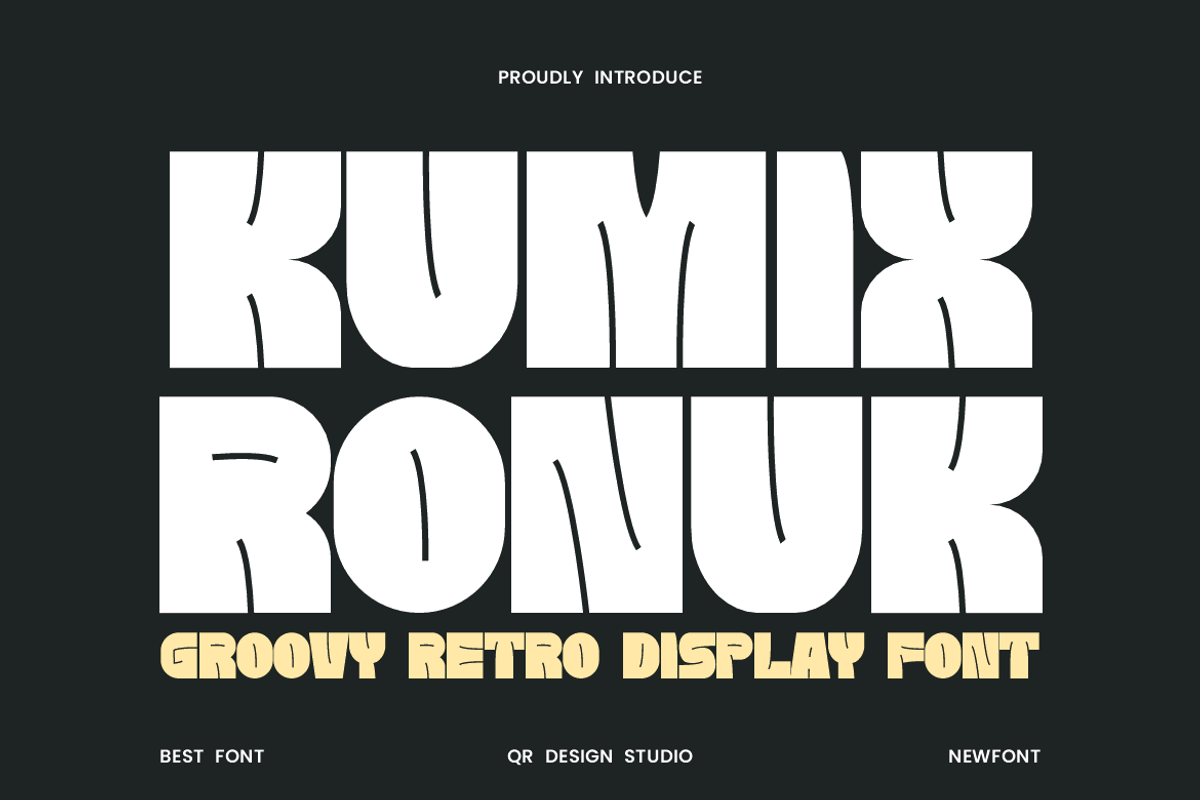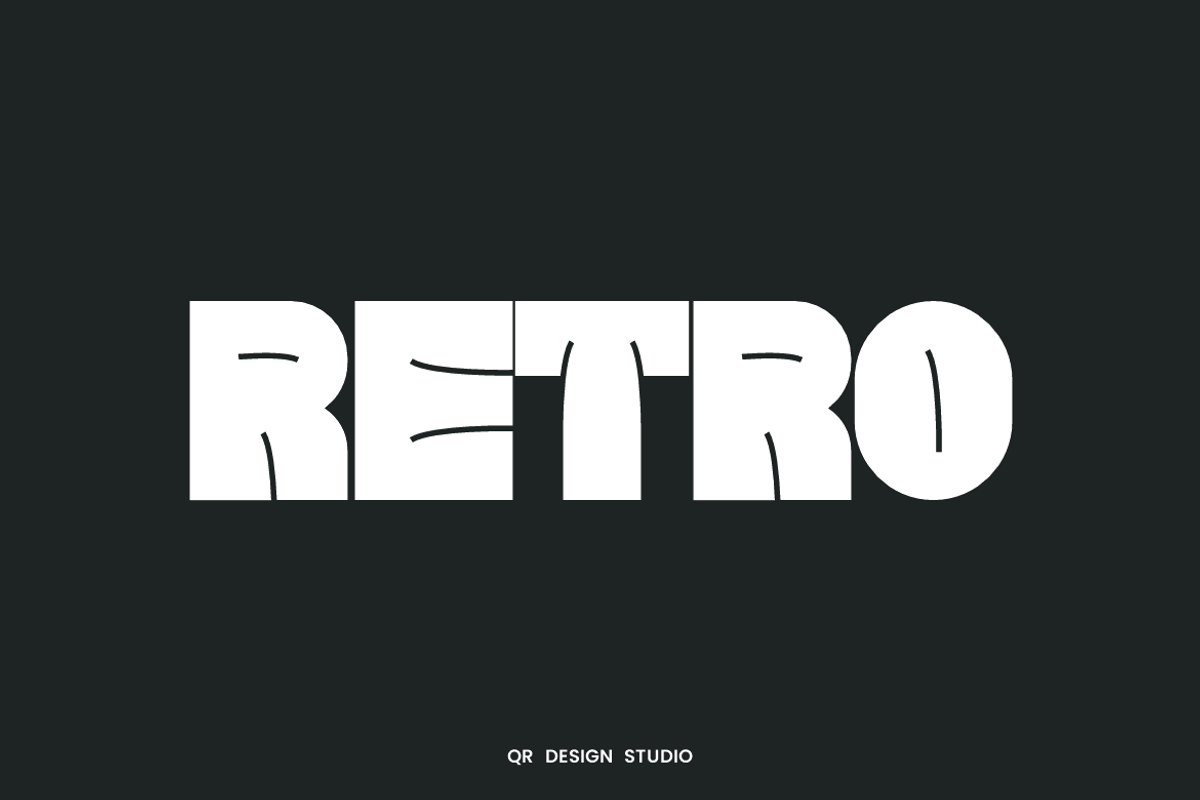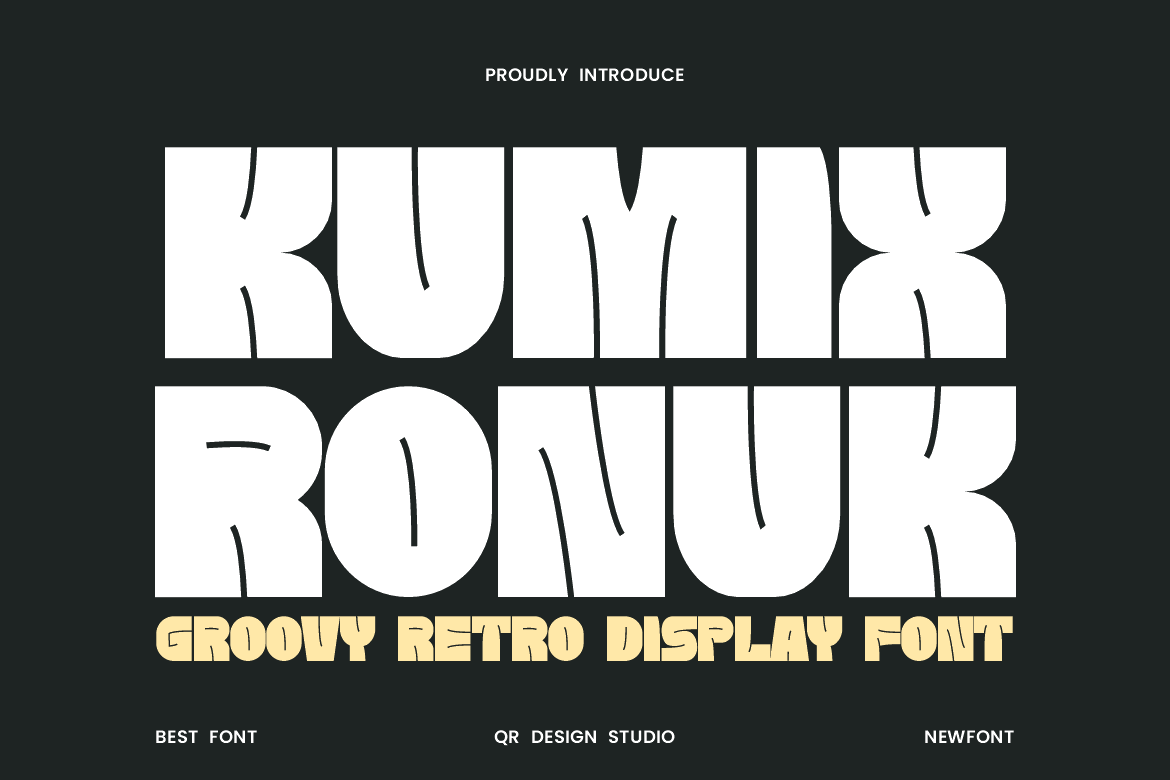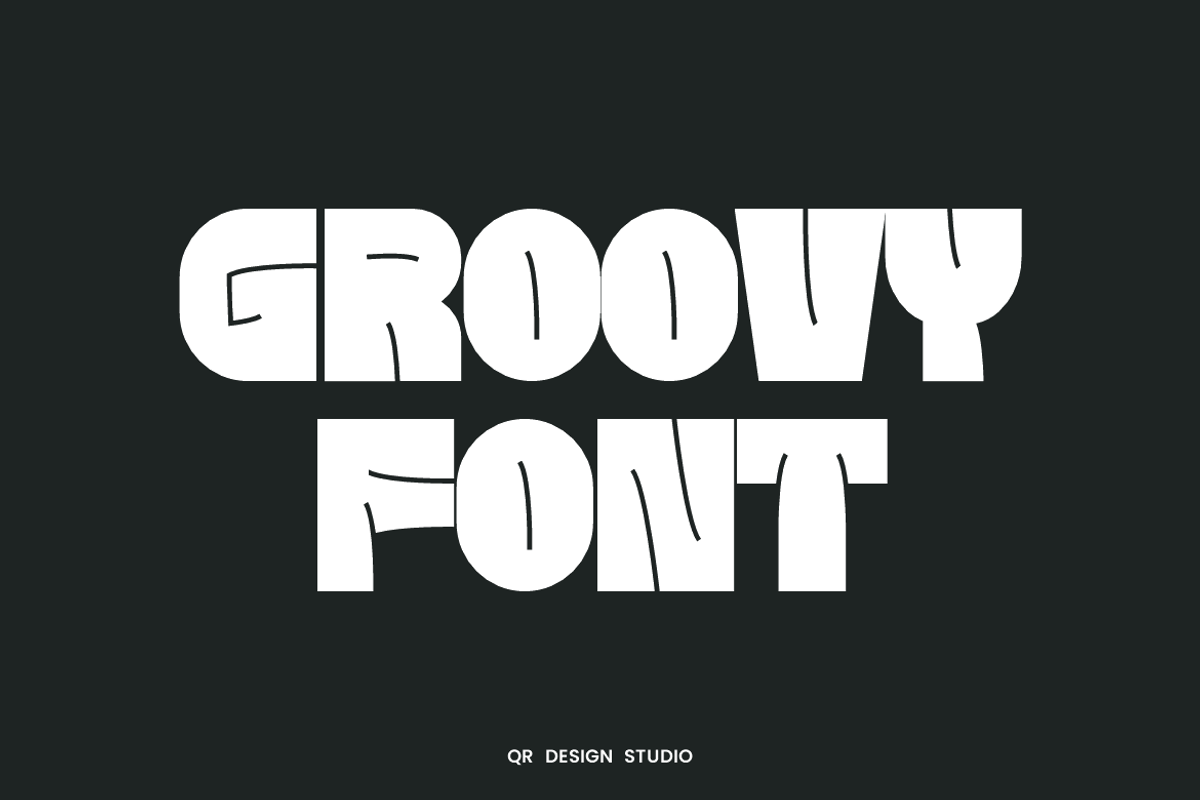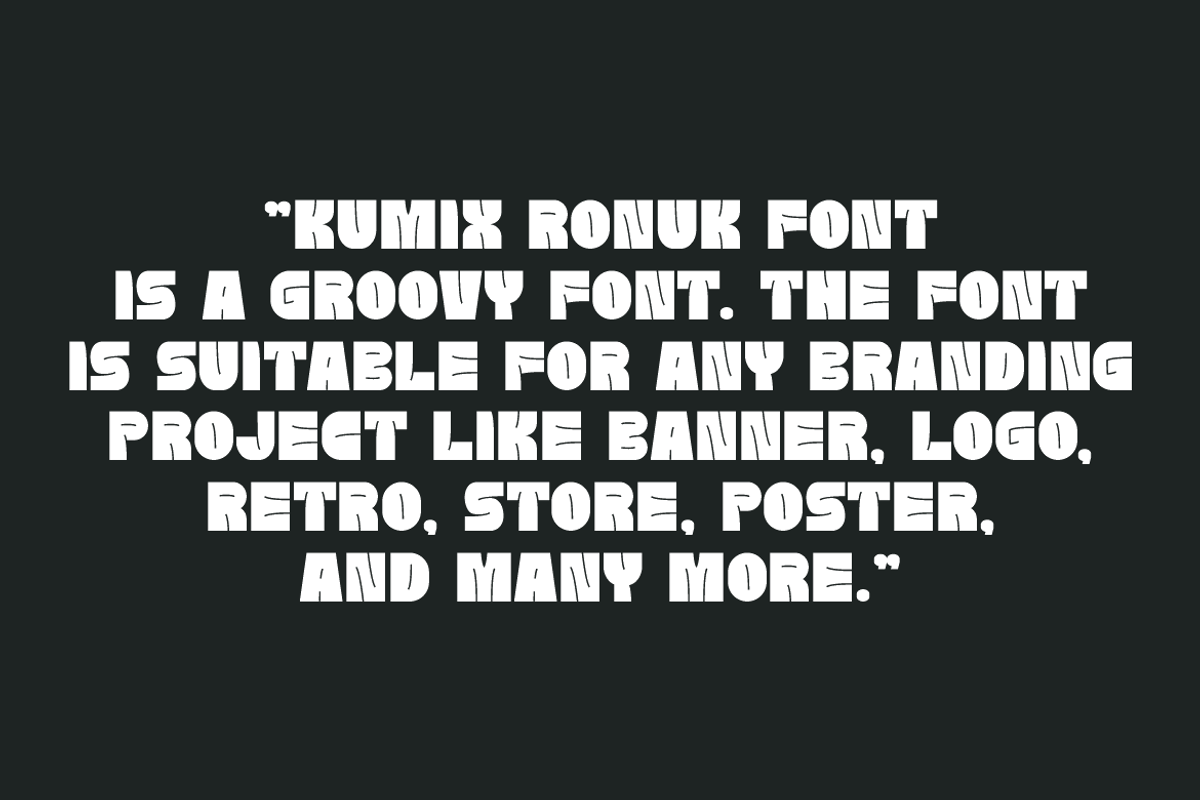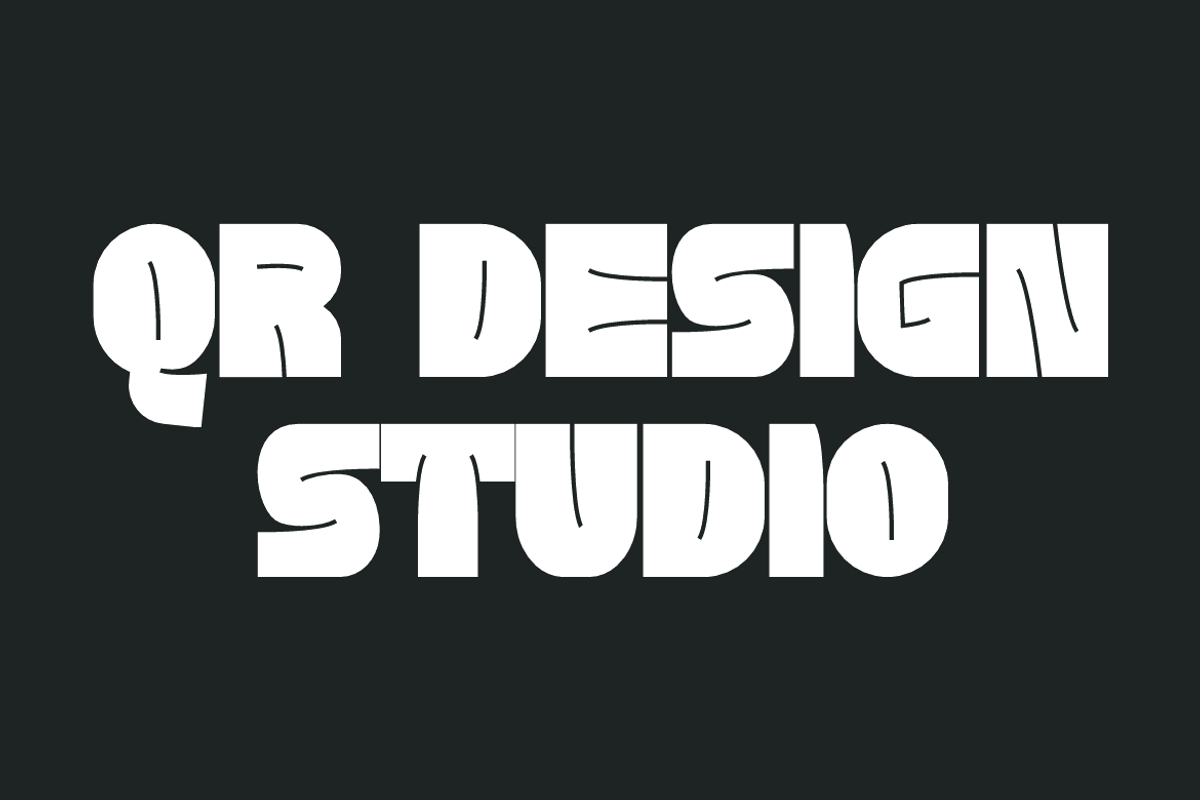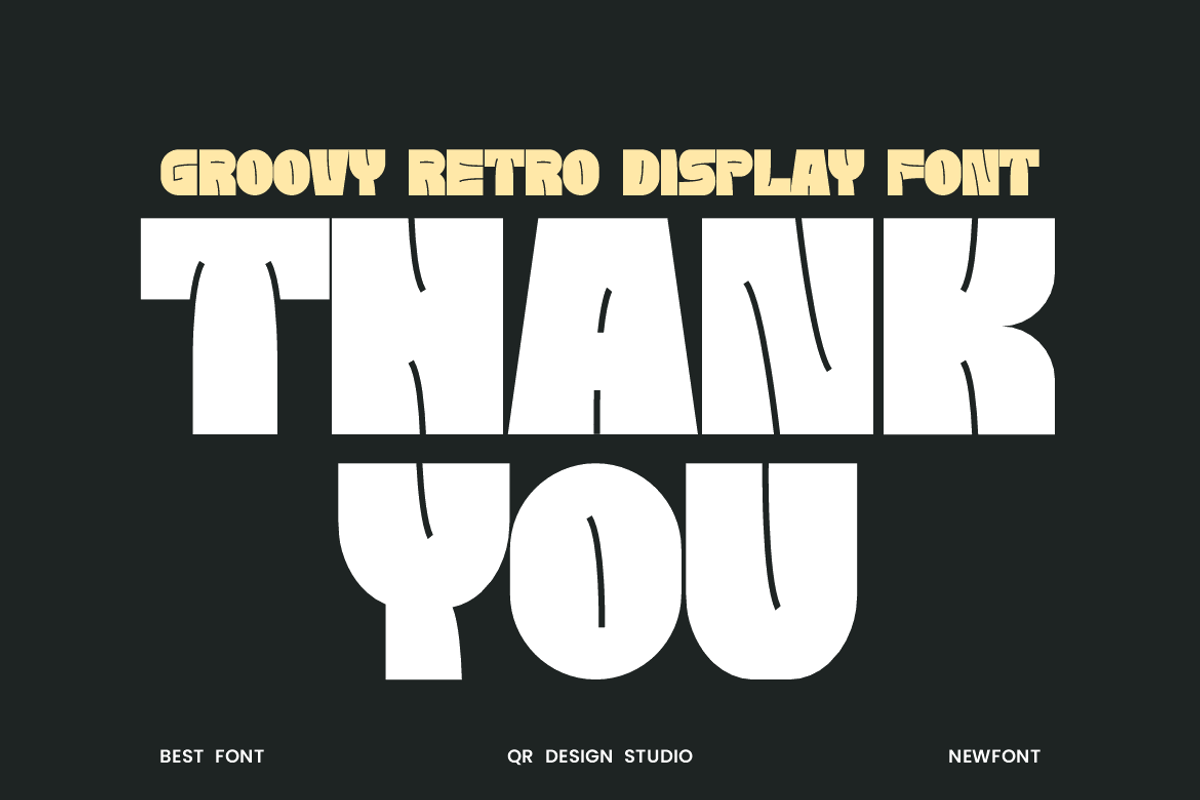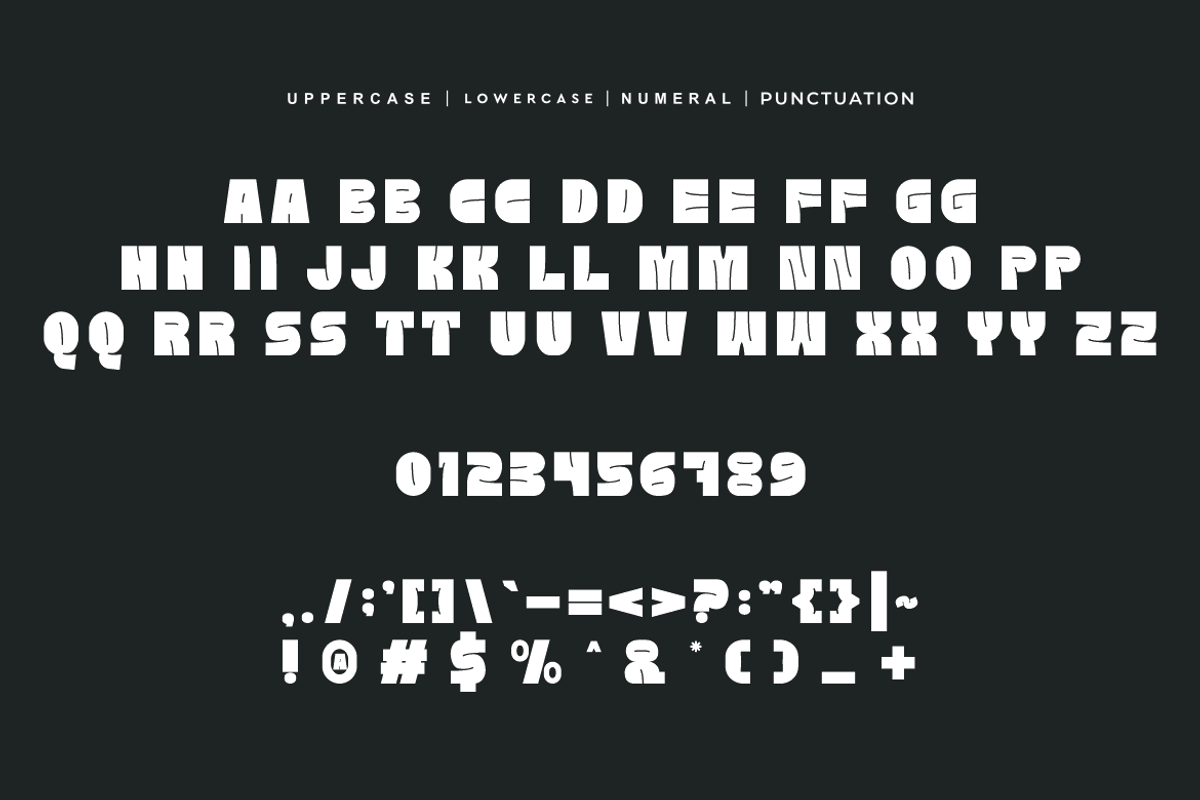
Kumix Ronuk - Groovy Font
Kumix Ronuk Font is a bold and authentic display font. The font is suitable for any branding project like poster, logo, and many more. Outstanding in a wide range of contexts.